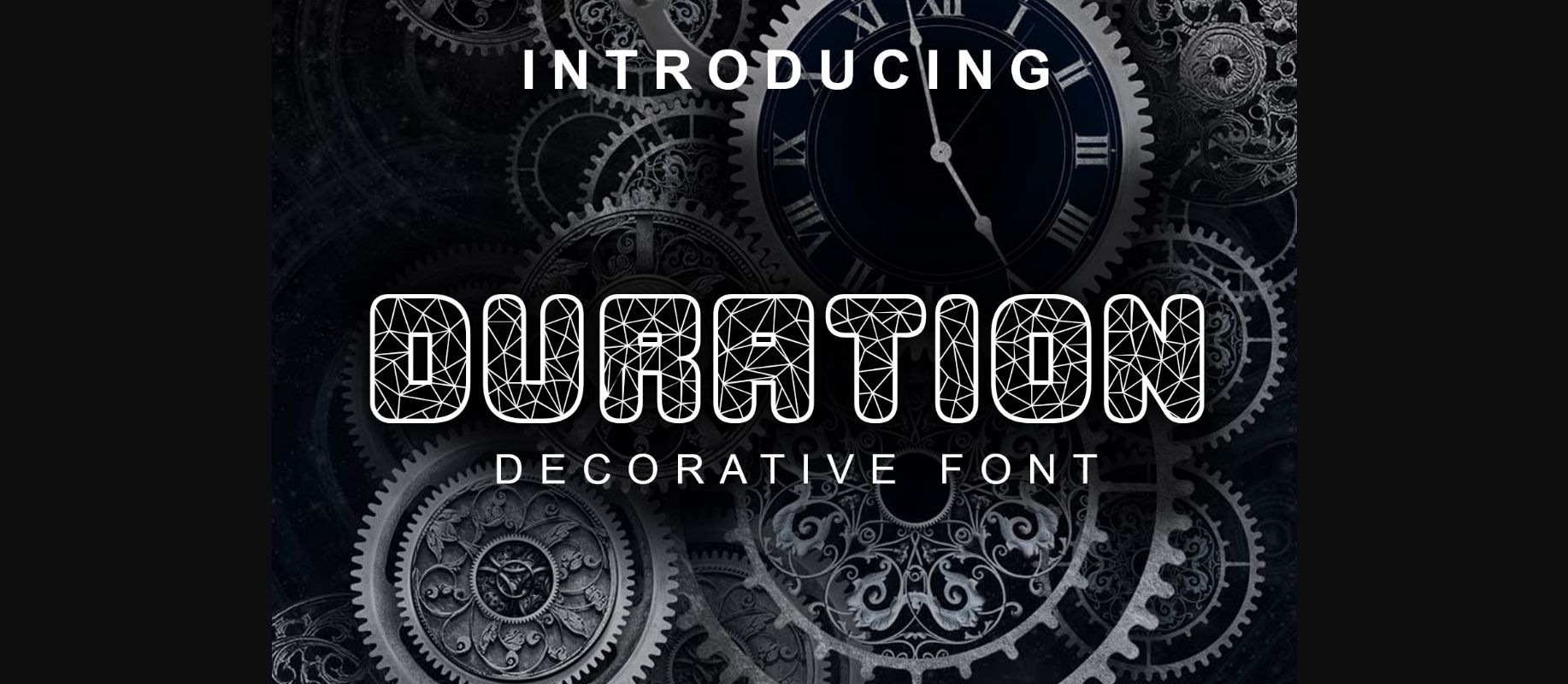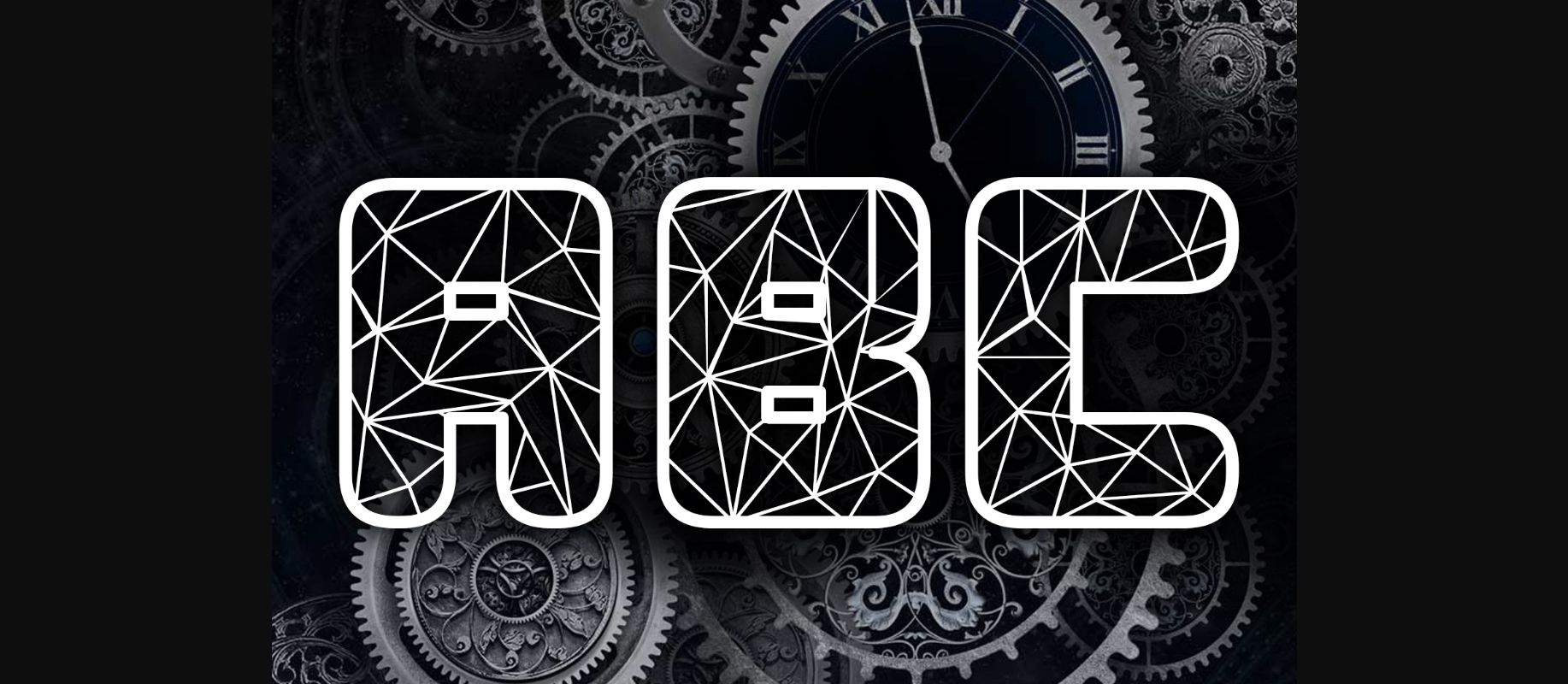
About Duration Font
The Duration is an awesome decorative font that comes in a regular and Italic style. It will look great on banners, flyers, headlines, and more.